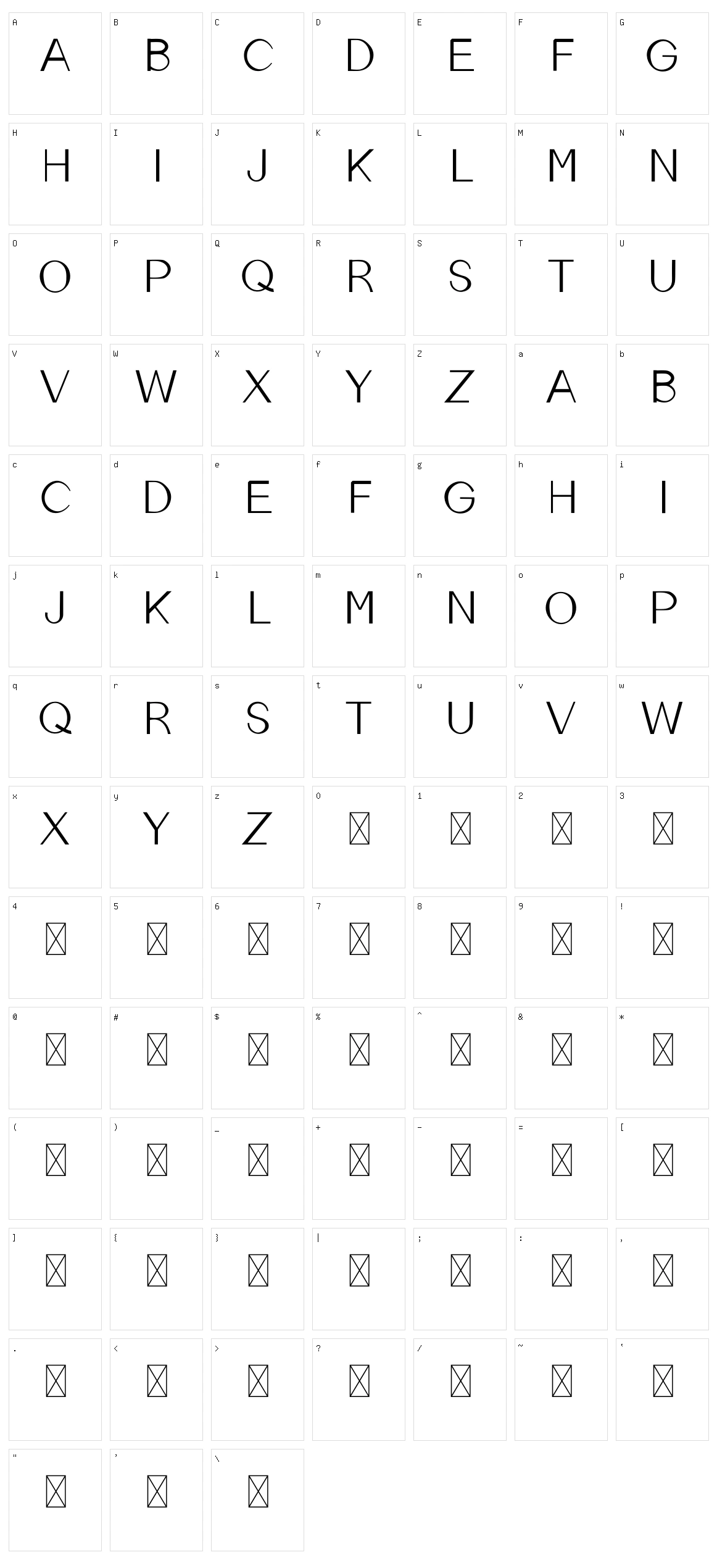
The free font Emelian is carefully designed by nendi emelia, showcasing a thoughtful balance of creativity and usability and falls under the Sans serif font style. When you download the ZIP file, it contains only 8.17 KB of font files, making it lightweight and quick to download. Please review the license details below to understand permitted usage and distribution rights. If license information is not available, we recommend using this font for personal projects only or contacting the author directly for commercial usage permissions.